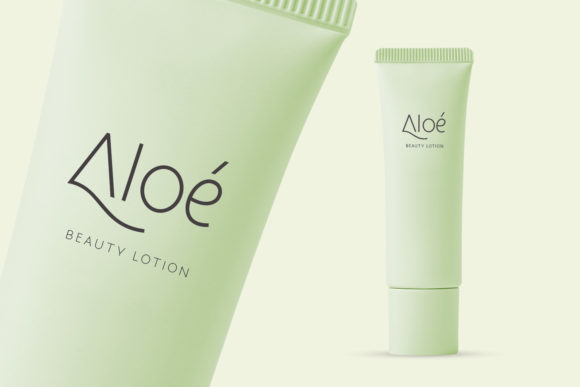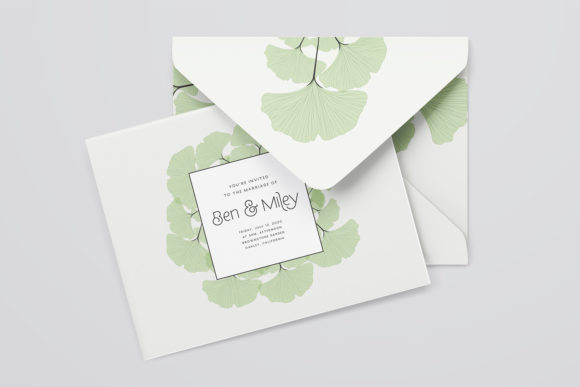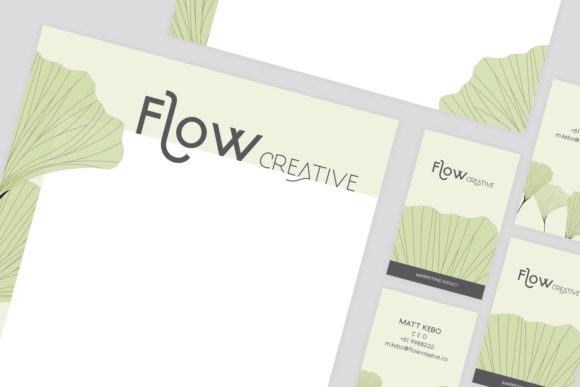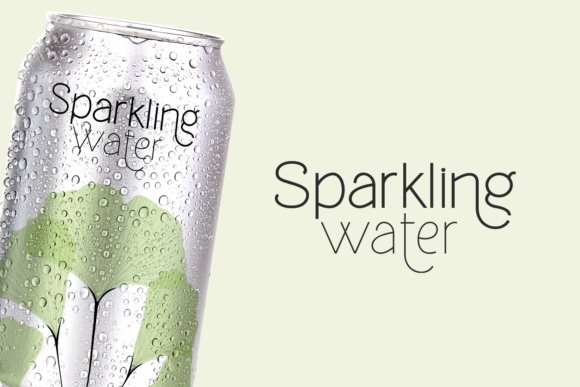
Introduction to Molga Font
Have you ever been working on a creative project, pouring your heart and soul into it, and suddenly, the perfect font appears out of nowhere, elevating your entire design to the next level? That’s exactly what happened to many designers when they stumbled upon the Molga Font. This sweet and cool display font has been making waves in the design community with its unique style and modern simplicity.
What makes the Molga Font so special is its high quality and versatility, making it a valuable resource for designers of all levels. Whether you’re working on a free download project or a high-end commercial campaign, this font is sure to add a touch of sophistication and elegance to your design. With its transparent background, you can easily overlay it on any image or background, giving you endless creative possibilities.
Key Features of Molga Font
- Features a unique, modern design with a mix of geometric and handwritten elements
Honest Review: Molga Font
As a designer, I’m always on the lookout for high-quality design resources that can elevate my creative projects. Recently, I had the chance to work with the Molga Font, and I’m excited to share my honest review with you.
- High-quality design: The Molga Font is incredibly well-designed, with a beautiful, modern aesthetic that’s perfect for creative projects.
While the Molga Font is a fantastic design resource, there are a few limitations to be aware of:
- Limited font styles: The Molga Font only comes in a few different styles, which may limit its versatility in certain projects.
- No bold or italic versions: Unfortunately, the font doesn’t include bold or italic versions, which can make it tricky to use in certain situations.
Overall, I’m really impressed with the Molga Font. While it may have a few limitations, its high-quality design and free download make it an amazing resource for designers. If you’re looking for a modern, stylish font for your creative project, the Molga Font is definitely worth checking out.
Tips for Getting the Most Out of Molga Font
For the best results, use Molga Font in conjunction with a transparent background to create a seamless design. You can also experiment with different font styles and sizes to add visual interest to your project.
The Molga Font is a versatile resource that can be used in a variety of creative projects, including logos, graphics, and digital art. It’s also a great option for those looking for a high-quality, free download font.